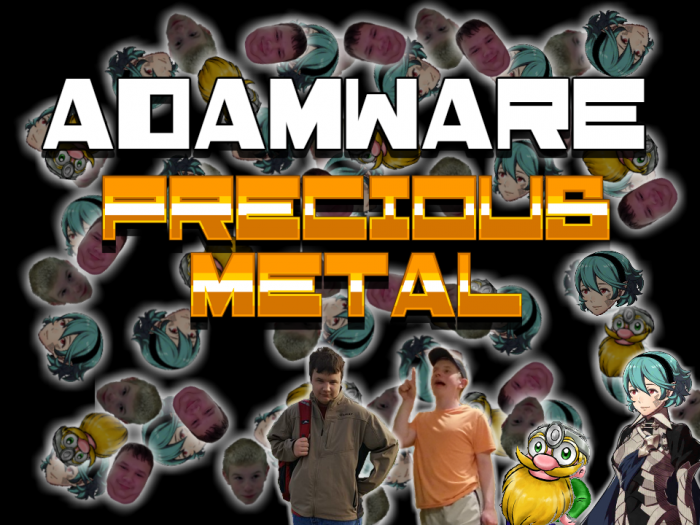
The sample shown is horrible and old, please ignore it...
Chunky, eye-catching, rectangular, like cut from black paper, very legible. Quirky variations and wonderful steps on some angled lines add excitement and movement. The Japanese has great personality here. Well done! A successful First Fontstruction.
Update: Smoothed out the entire font!
Found out how to correctly use composite bricks! =)
Nice one! "マッスグマ" means "Linoone".
Thumbnail of my scratch game.
Also, you can make the small ke smaller...